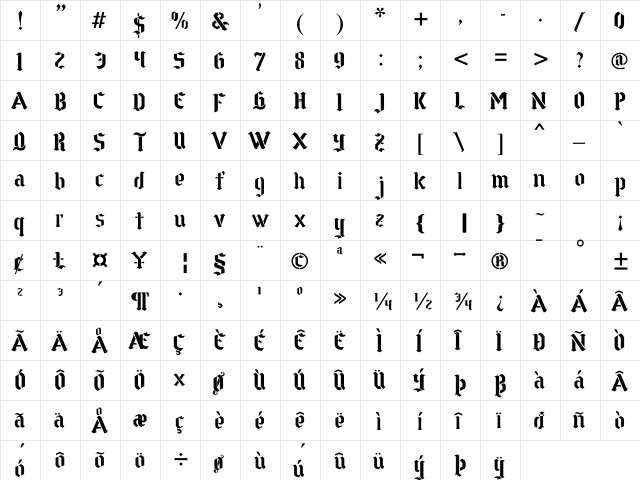
Goth Stencil Premium Stencil
| Style | Stencil |
| Designer | 頠Juan Casco, 2009 |
Design Context for Goth Stencil Premium Typeface
Goth Stencil Premium borrows the utilitarian aesthetic of stencil lettering, with its characteristic cutaways and no-frills construction lending an industrial edge.
Ideal for industrial branding, streetwear, military-adjacent aesthetics, and urban signage projects.
Pro Tip: Pair Goth Stencil Premium with raw, utilitarian design elements — exposed concrete textures, flat colour, and minimal ornamentation suit it well.